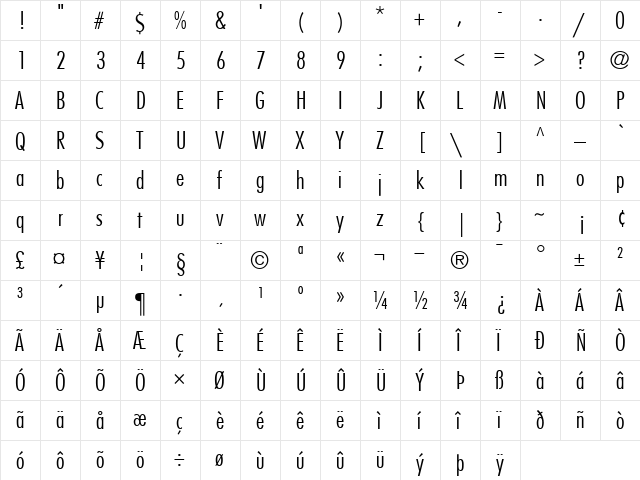
Futura-CondensedLight Light Font Preview
Design Context for Futura-CondensedLight Typeface
Futura-CondensedLight channels digital-age aesthetics through its sharp, structured letterforms — ideal for brands that want to signal innovation. The delicate stroke weight brings airiness and refinement to layouts. The condensed width makes it efficient for tight spaces without sacrificing legibility.
Pro Tip: Try Futura-CondensedLight with generous letter-spacing in UI labels and navigation — the geometric forms benefit from room to breathe.